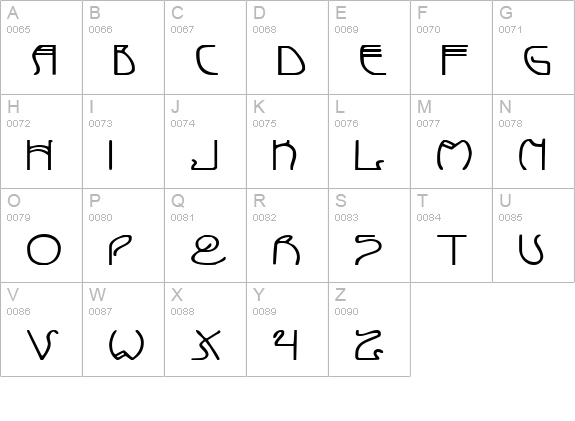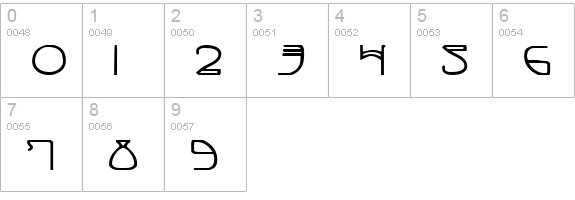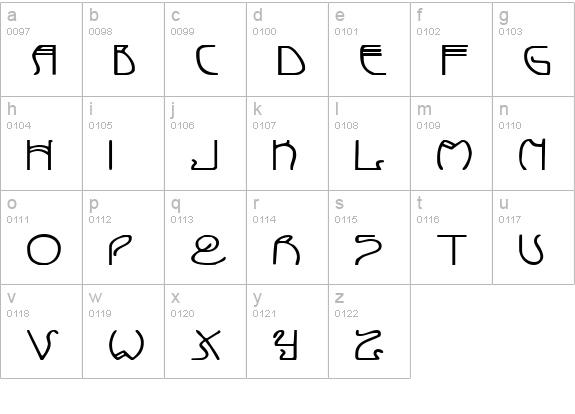
Coyote Deco Expanded is a distinctive, extended-width variant in the Coyote typeface family \xE2\x80\x94 well suited to design and typography projects.
Coyote Deco Expanded font is a stylish and versatile typeface that exudes a sense of modernity and sophistication. With its clean lines and geometric shapes, this font is perfect for a variety of design projects, from branding to editorial design. The expanded version of the font adds an extra level of impact, making it stand out even more. One of the best things about Coyote Deco Expanded font is that it is available for free download at FontsMarket.com. This means that you can easily access this high-quality font without any cost, allowing you to enhance your projects with a professional and eye-catching typeface. Whether you're working on a print design, web layout, or any other creative project, Coyote Deco Expanded font is sure to make a bold statement and leave a lasting impression on your audience.